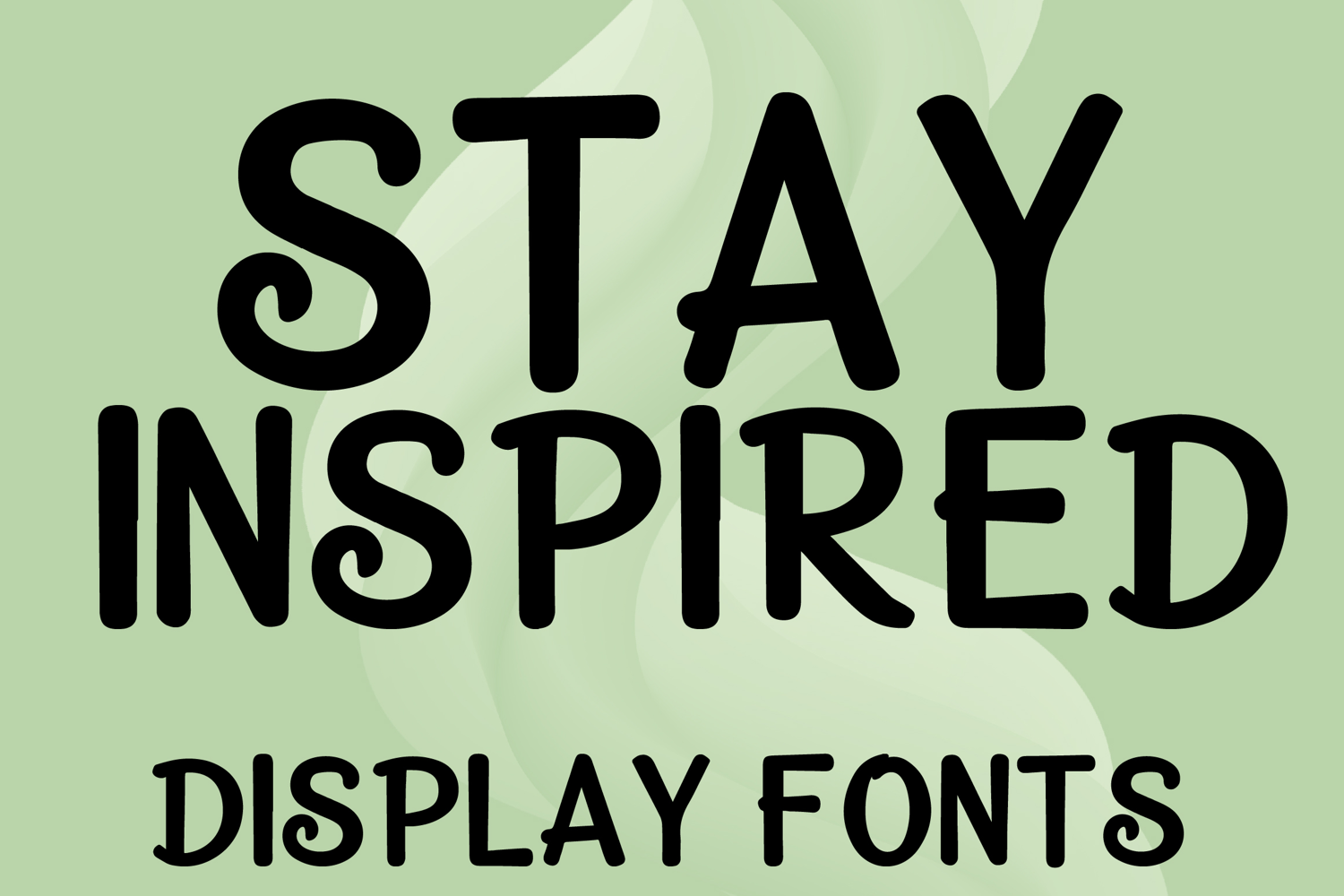
STAY INSPIRED
STAY INSPIRED is a bold decorative display font with a playful modern-retro style and expressive handcrafted charm. Its uppercase letterforms feature thick smooth strokes, rounded edges, and whimsical spiral details that add a fun, lively, and eye-catching personality. Designed with uppercase letters A–Z and numbers 0–9, STAY INSPIRED is perfect for branding, posters, packaging, quotes, invitations, social media graphics, and creative projects that need a cheerful, stylish, and memorable statement.
STAY INSPIRED